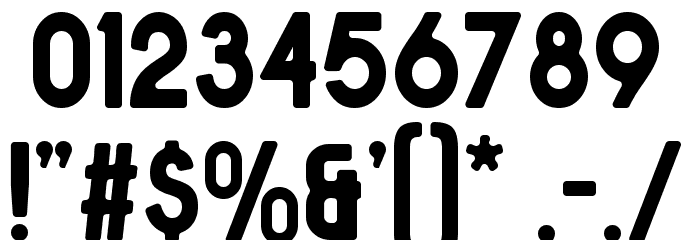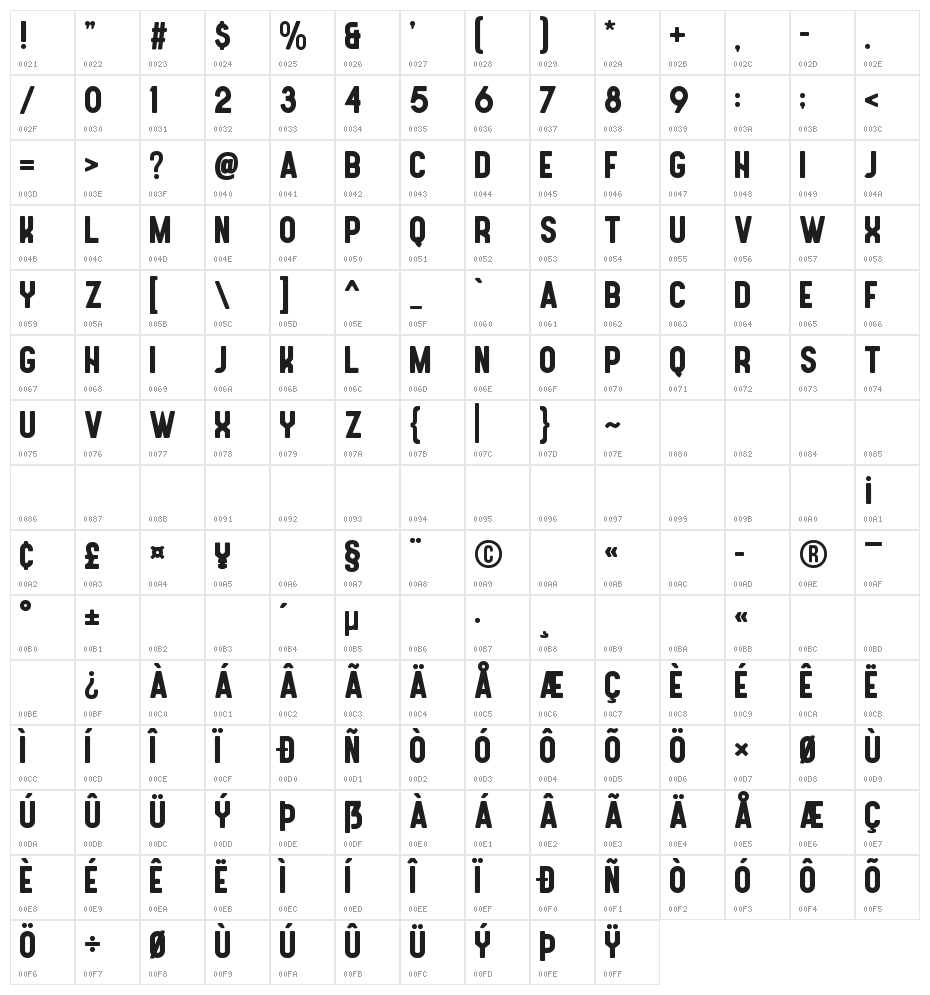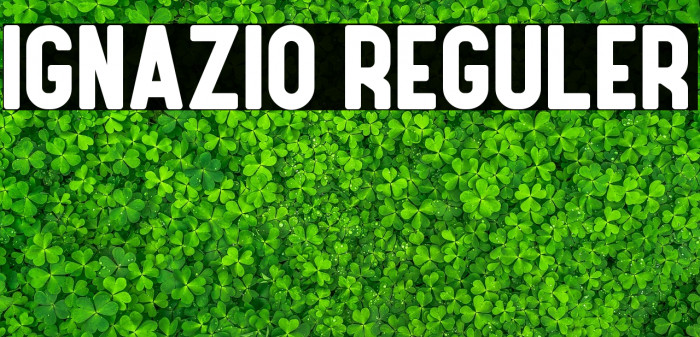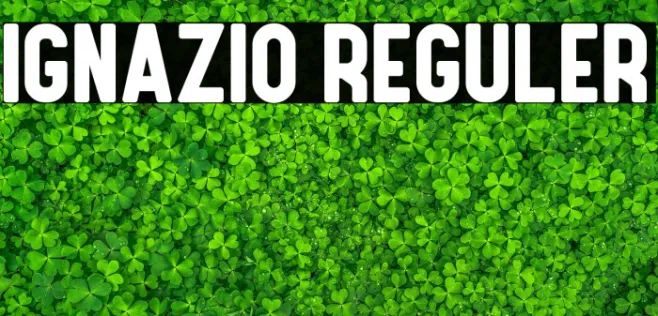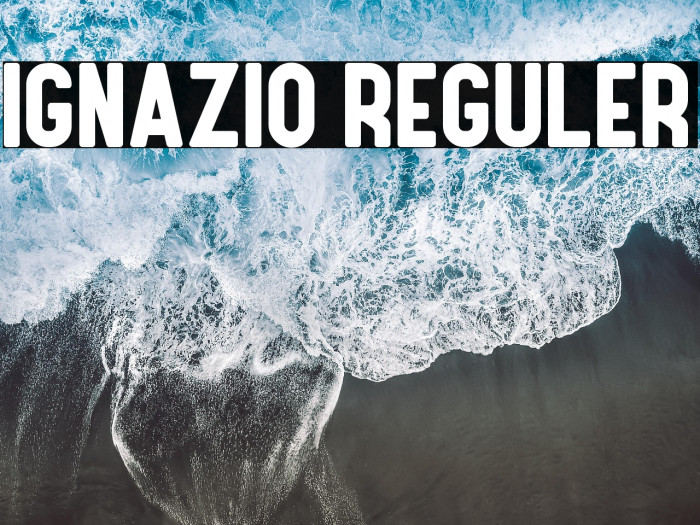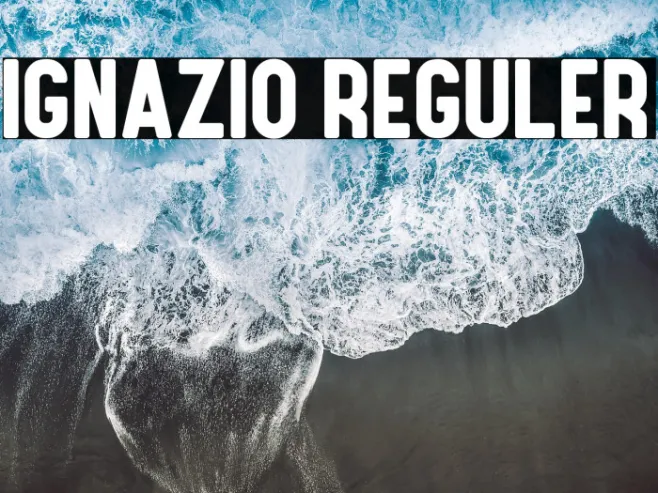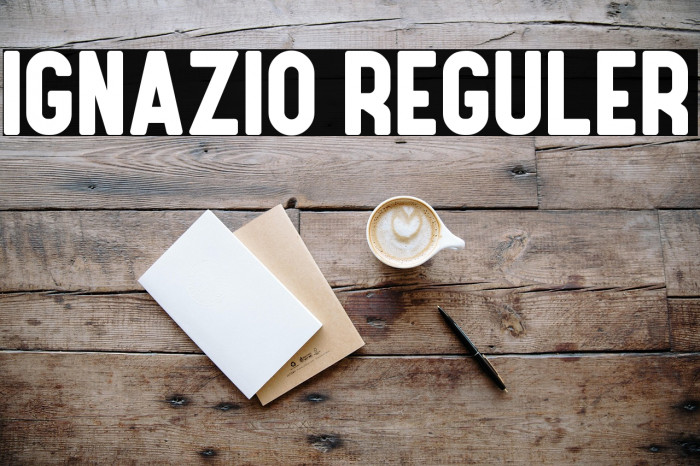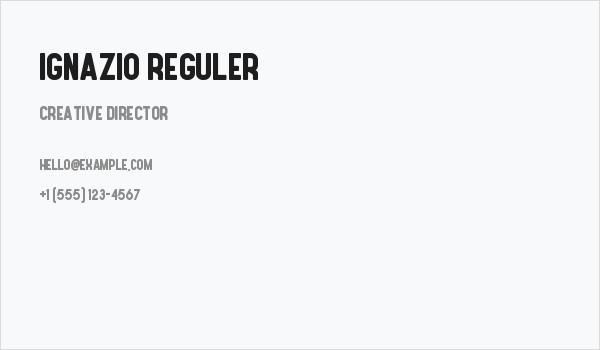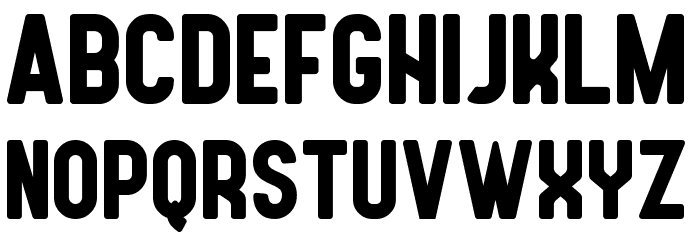
Ignazio Reguler Font
Ignazio Reguler Description
This font features bold, thick strokes with a strong presence, making it highly legible and impactful. The characters are uniformly designed with a modern aesthetic, emphasizing clarity and readability. The uppercase and lowercase letters maintain a consistent style, with rounded edges that soften the overall appearance. The numerals are equally bold, ensuring they stand out in any design. Special characters are included, matching the robust style of the alphabet. This font is versatile, suitable for various design needs where a strong, modern look is desired.
| Proposed Projects | Ideal for branding, posters, headlines, and any project requiring a strong visual impact. |